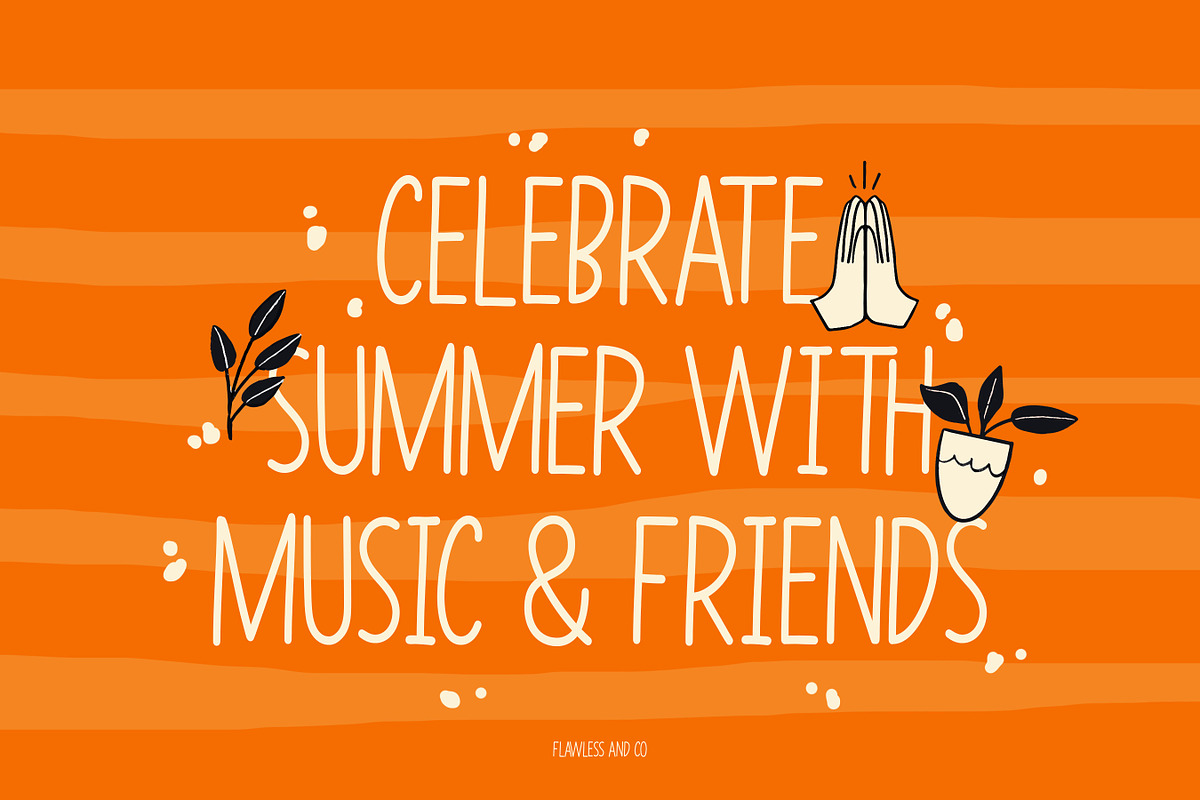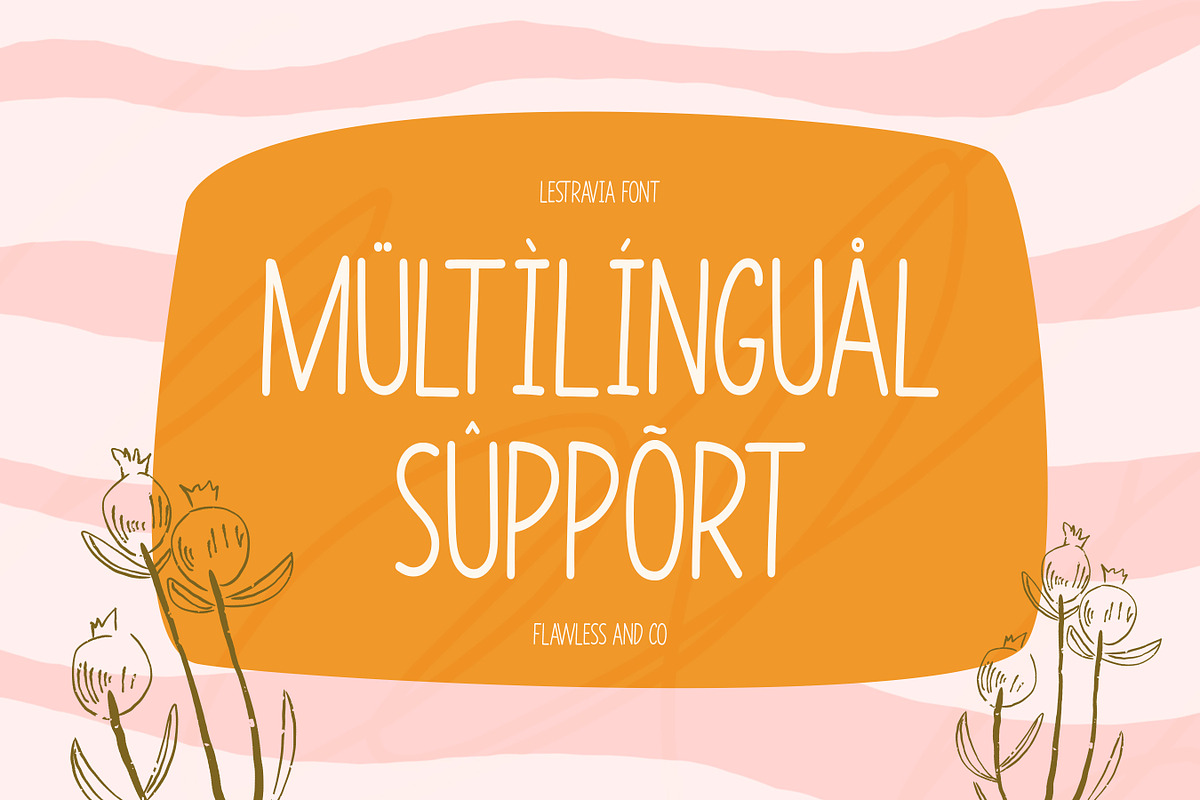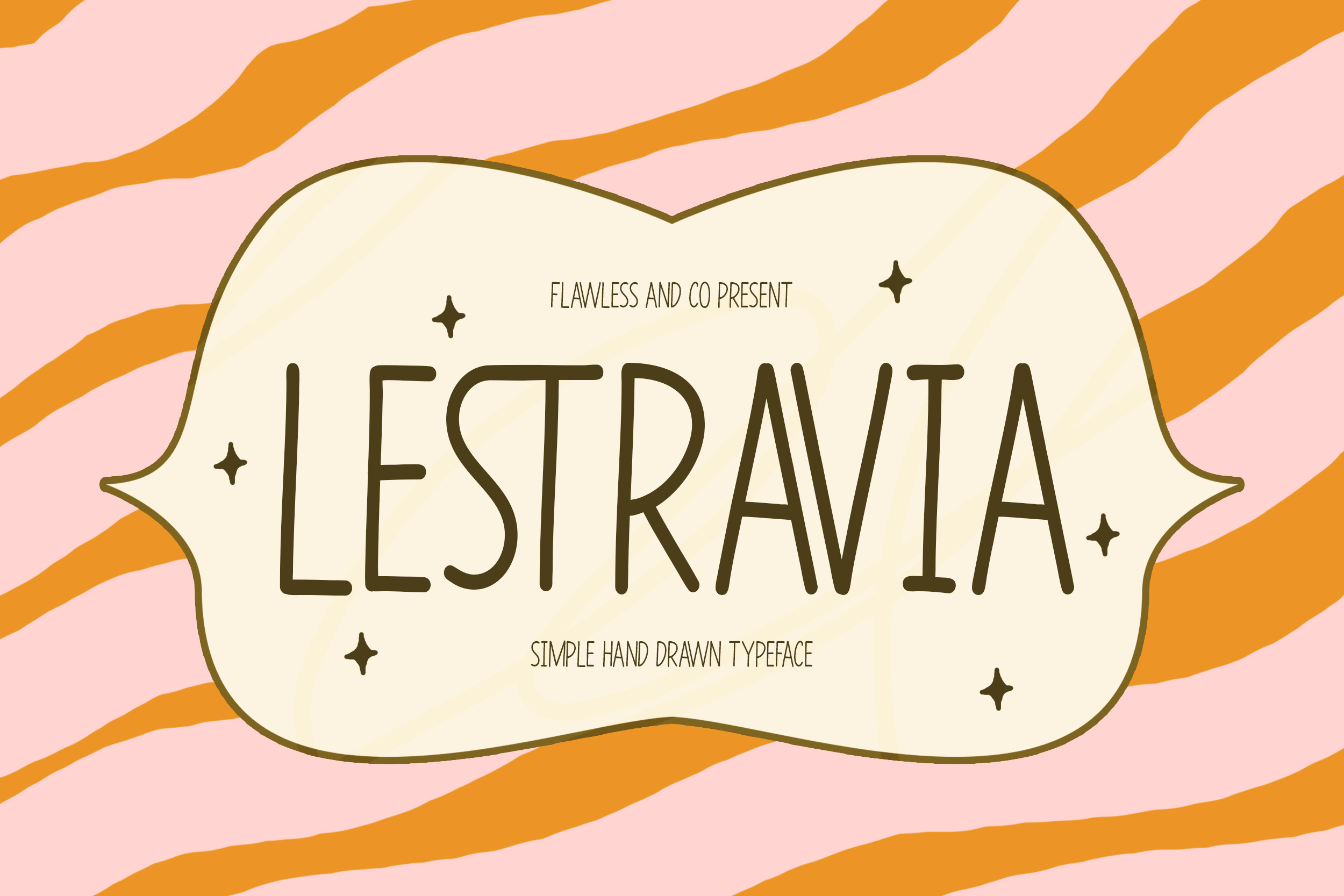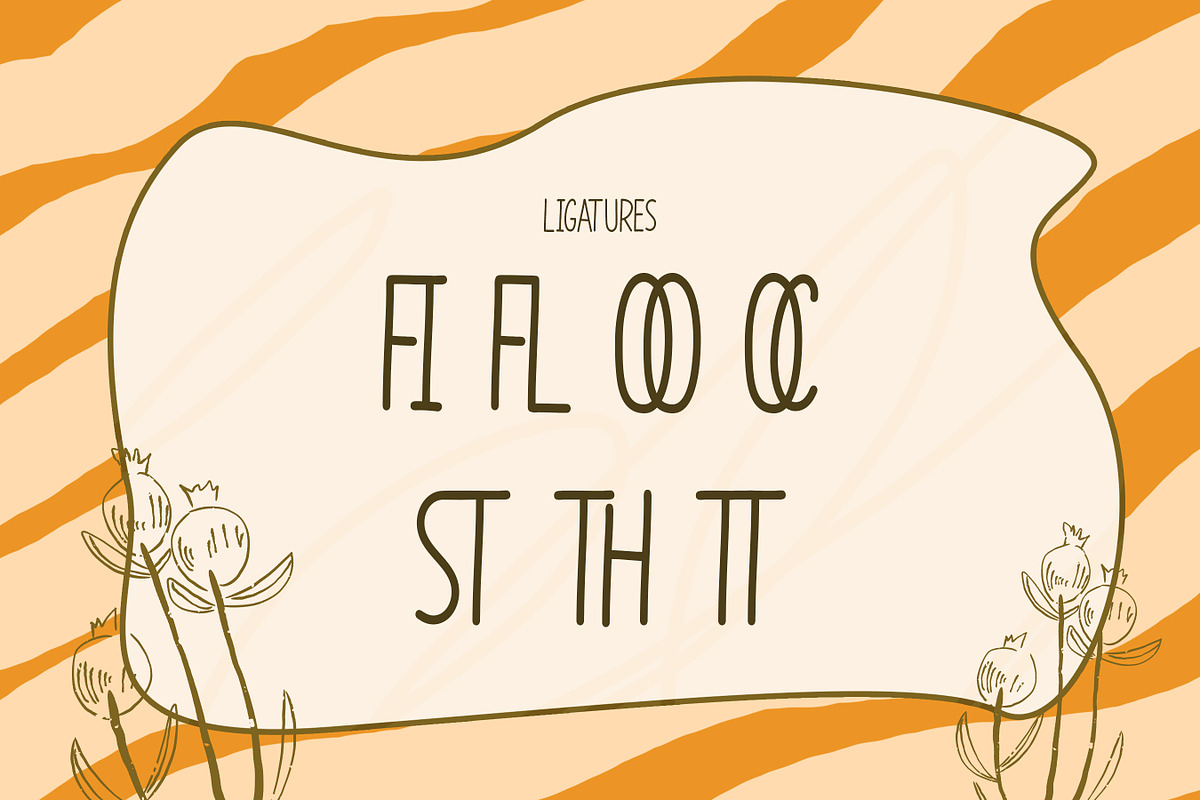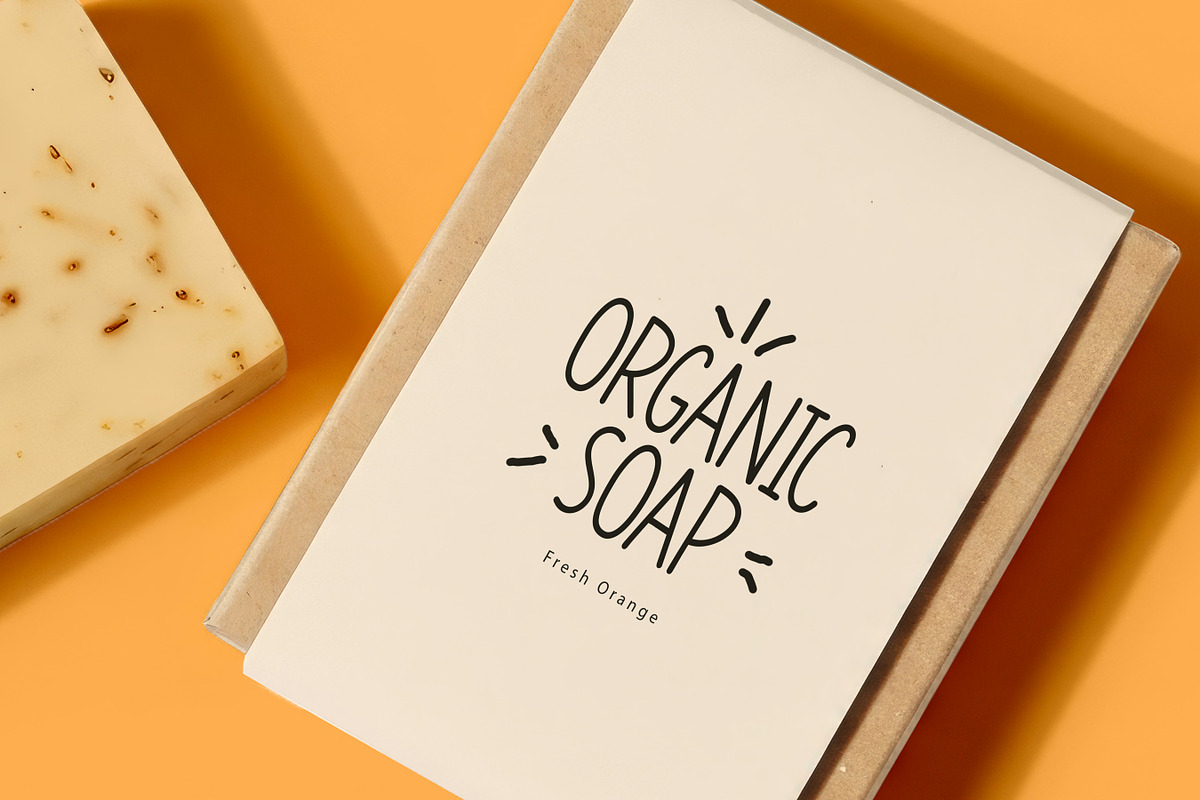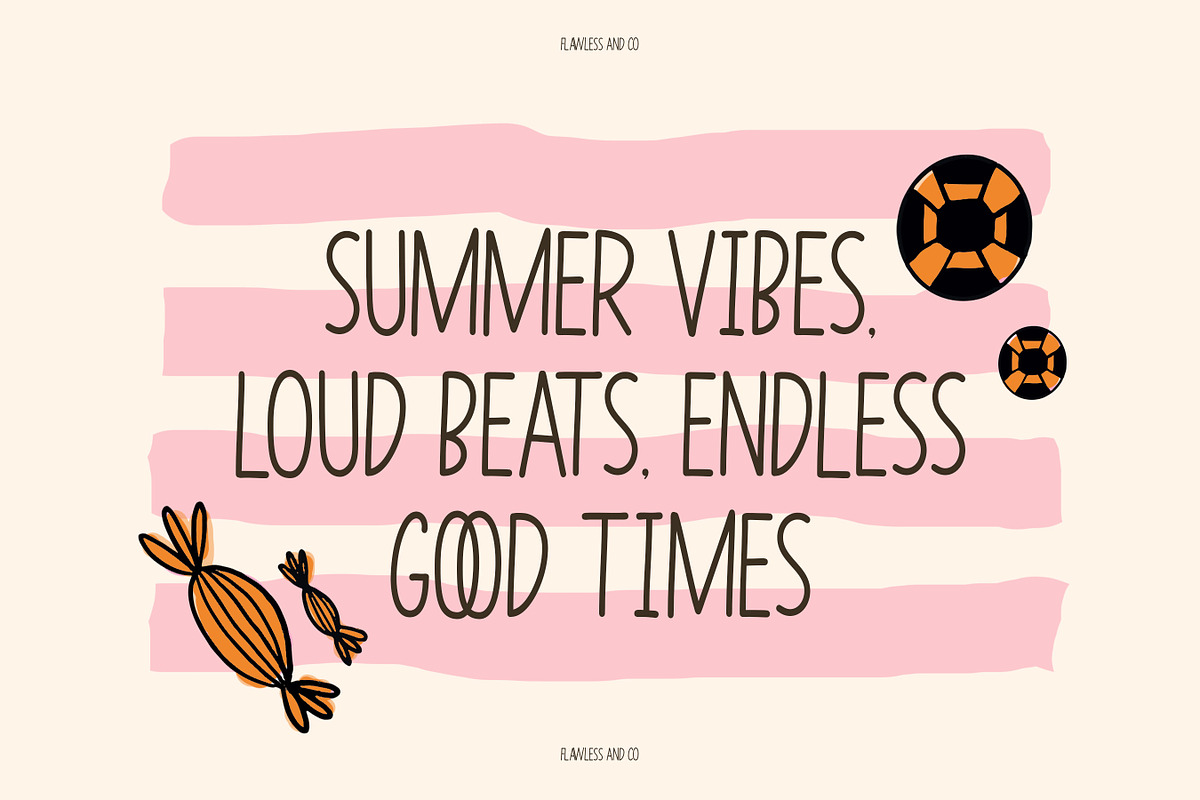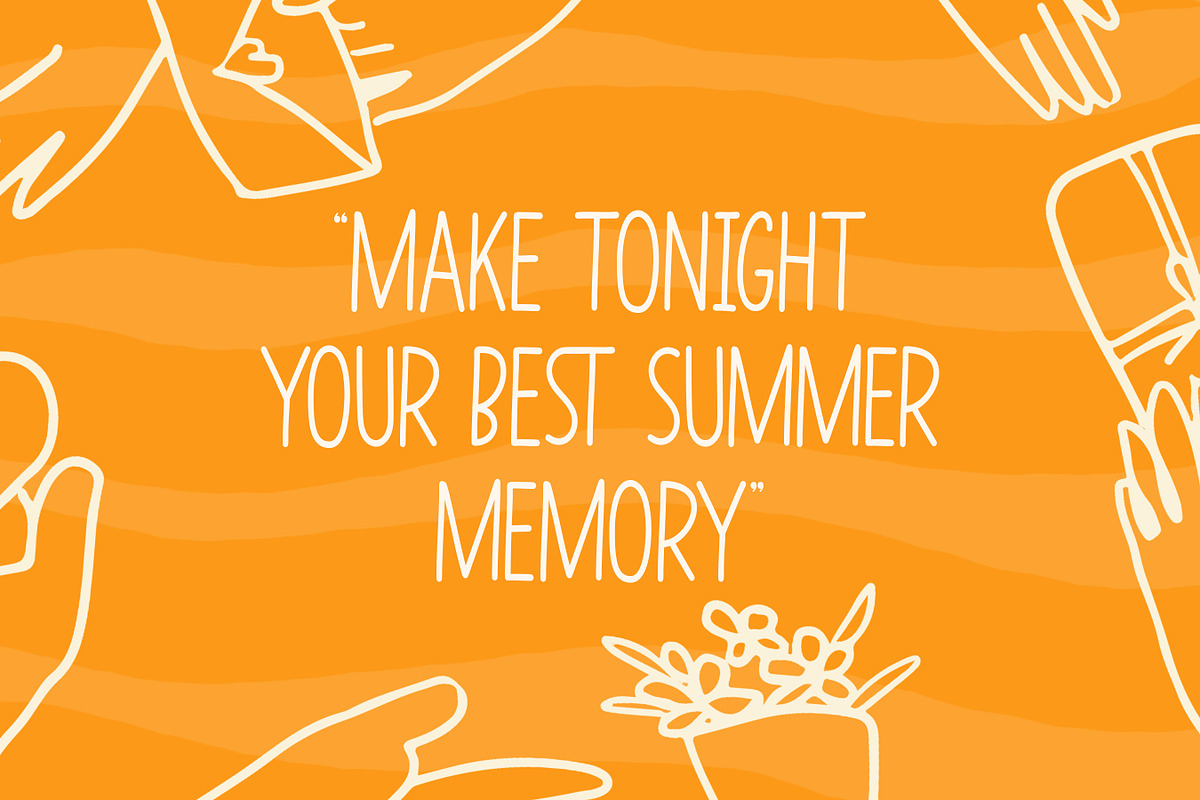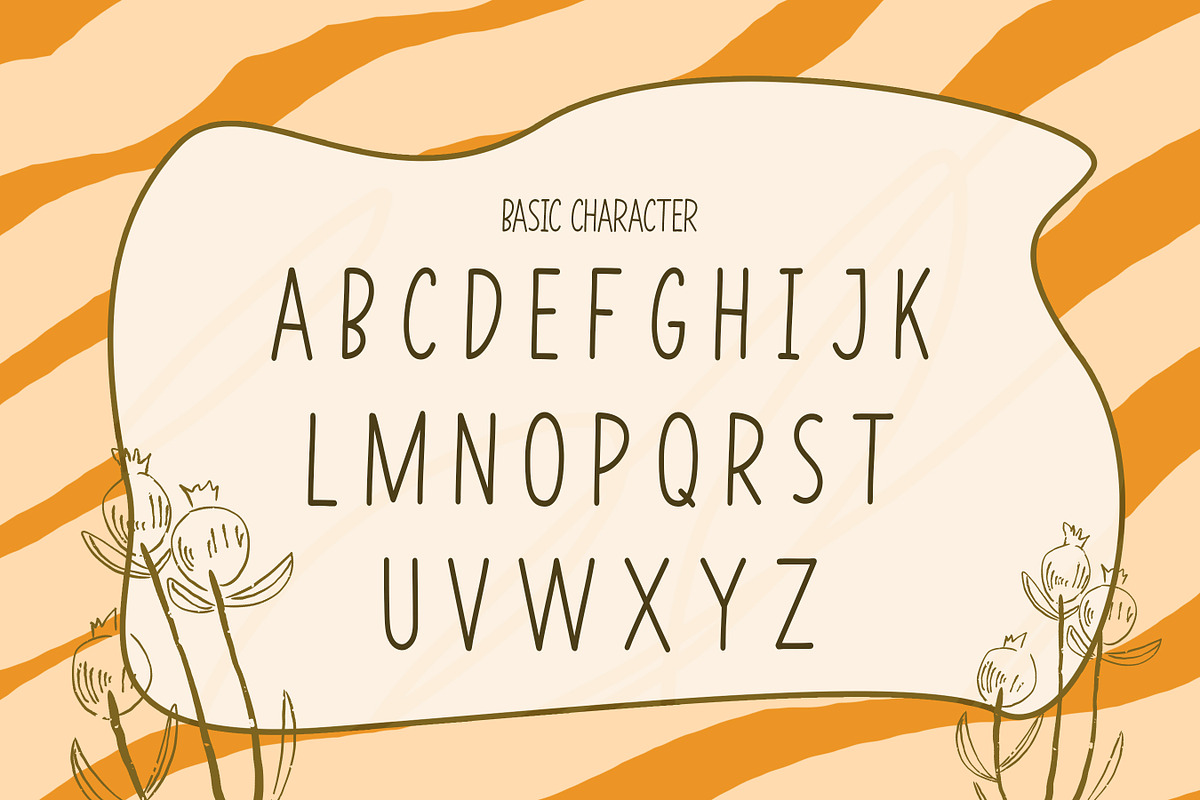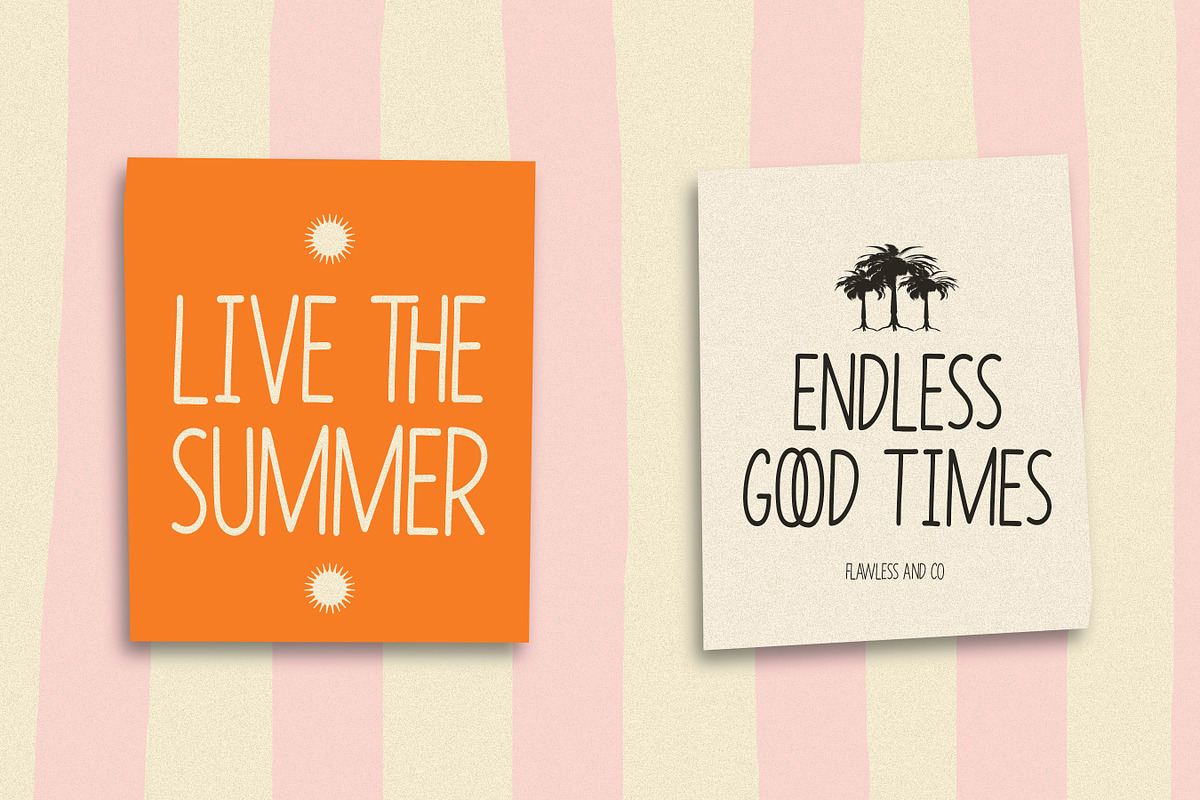
Lestravia - Simple Hand Drawn Font
Lestravia is a simple hand drawn font created to bring an authentic, relaxed, and friendly feeling to your typography. With its organic strokes, natural letterforms, and subtle handmade imperfections, Lestravia captures the charm of handwritten lettering without feeling overly decorative. Its casual personality makes every word feel warm, approachable, and effortlessly creative.
Inspired by handwritten notes, everyday sketches, and the beauty of imperfect lettering, Lestravia has a naturally expressive character that works beautifully in both minimal and playful compositions. The loose and organic shapes give your designs a human touch, making them feel less formal and more genuine.
Alternates & Ligatures
Who should use Lestravia?
Lestravia is perfect for graphic designers, illustrators, creative entrepreneurs, stationery designers, and content creators who want to add a genuine handmade touch to their work. It is especially suited for projects that need a friendly, relaxed, and approachable personality.
Suitable For:
Handmade logo and branding
Craft and artisan packaging
Product labels and tags
Greeting cards and stationery
Quotes and inspirational designs
Social media content
Lifestyle and boutique branding
Children's products
Doodles and illustrations
Casual handwritten typography